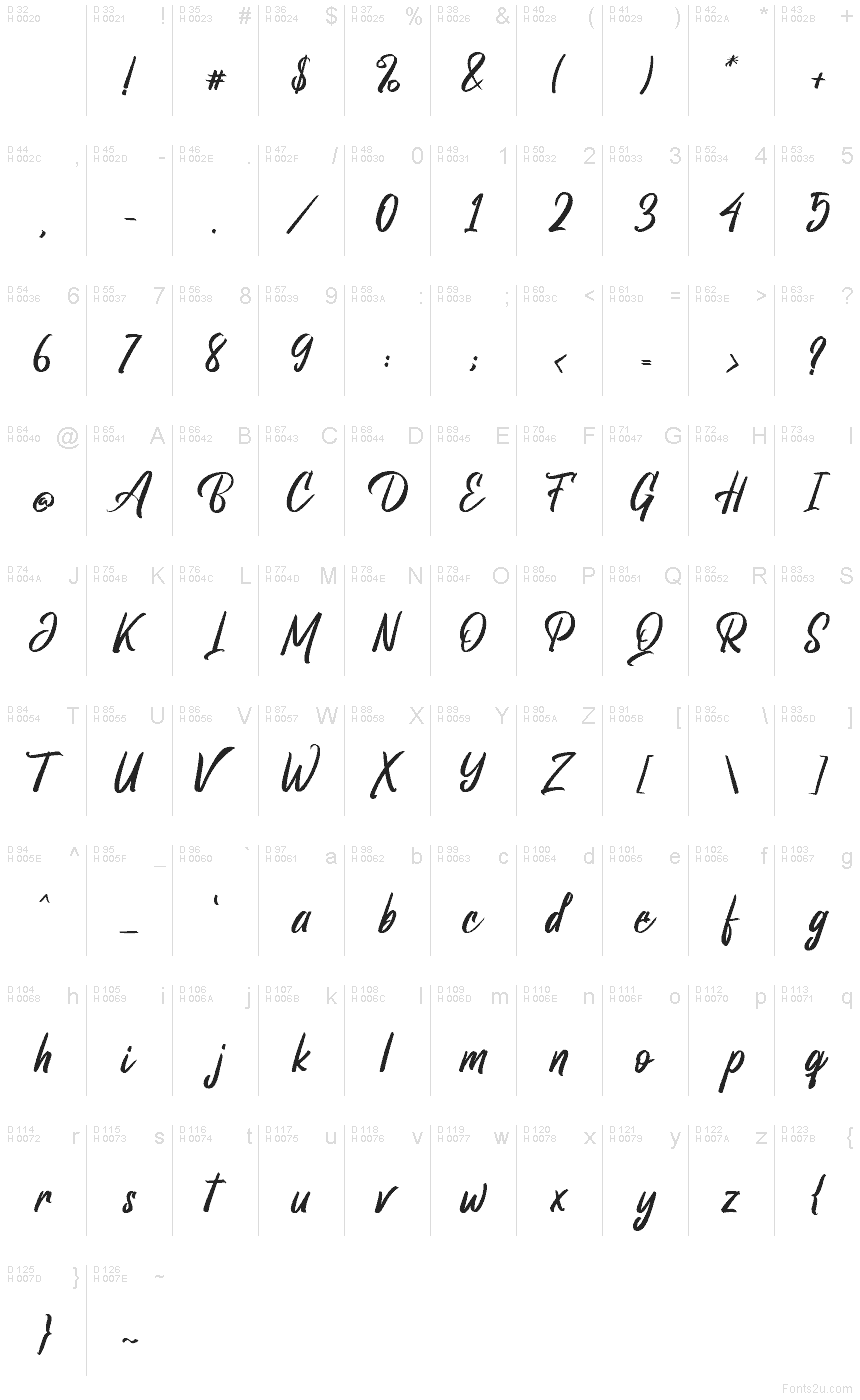
Menthok Regular
Menthok font by Rahagita Studio is a free handwritten font that stands out with its expressive informal script design. This unique brush typeface combines casual elegance with a relaxed yet stylish aesthetic, creating an eye-catching and visually stunning appearance.
Perfect for website headers, Instagram captions, and logo designs; Menthok is also great for book covers, photography, brochures, business cards, branding and packaging, presentations, movie posters and more!